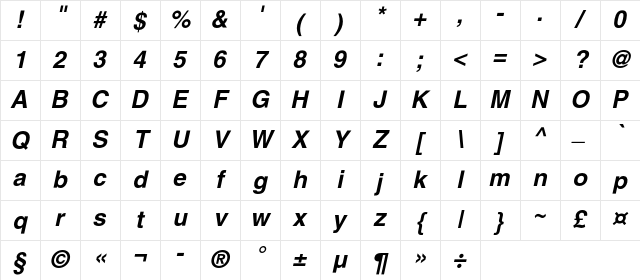
AGLettericaC is a composed and adaptable typeface that performs quietly and consistently across a wide range of design contexts. The slanted form adds forward momentum and visual energy. Its bold stroke weight gives it real presence on the page.
Pro Tip: Use AGLettericaC for emphasis, pull quotes, and subheadings where its slanted energy can add rhythm to the layout.